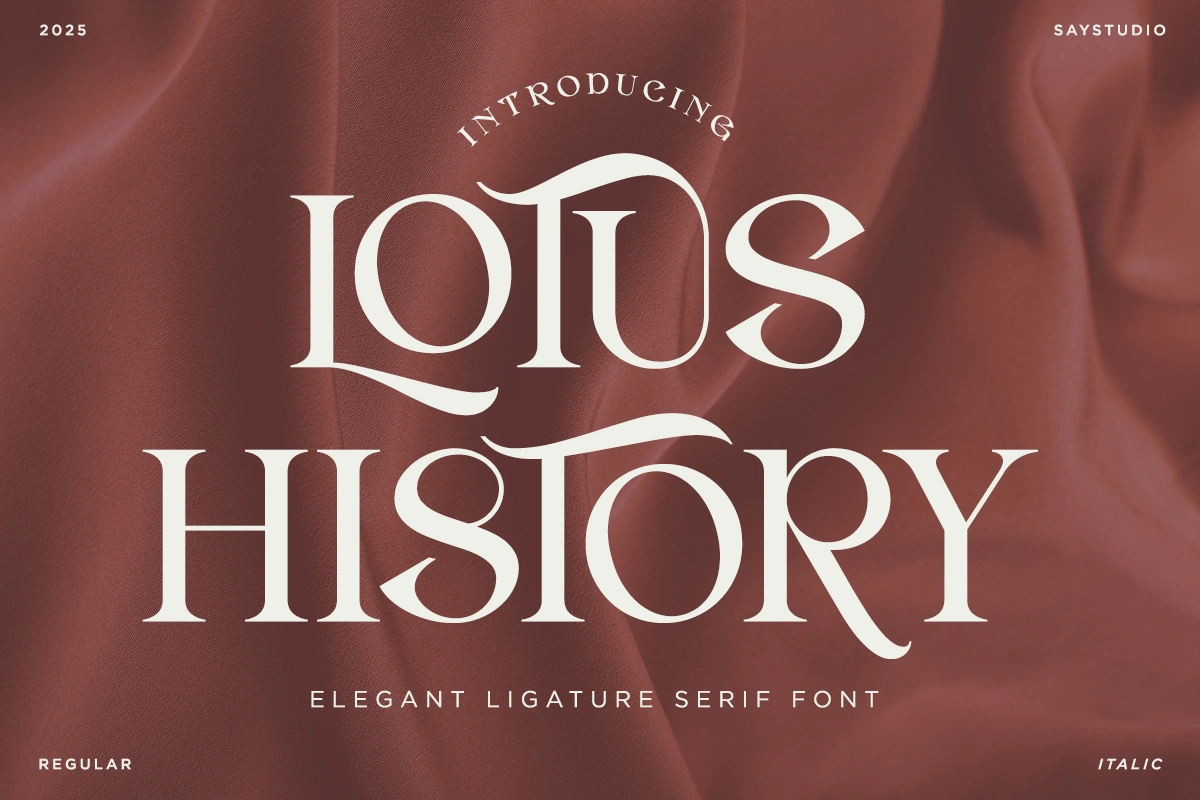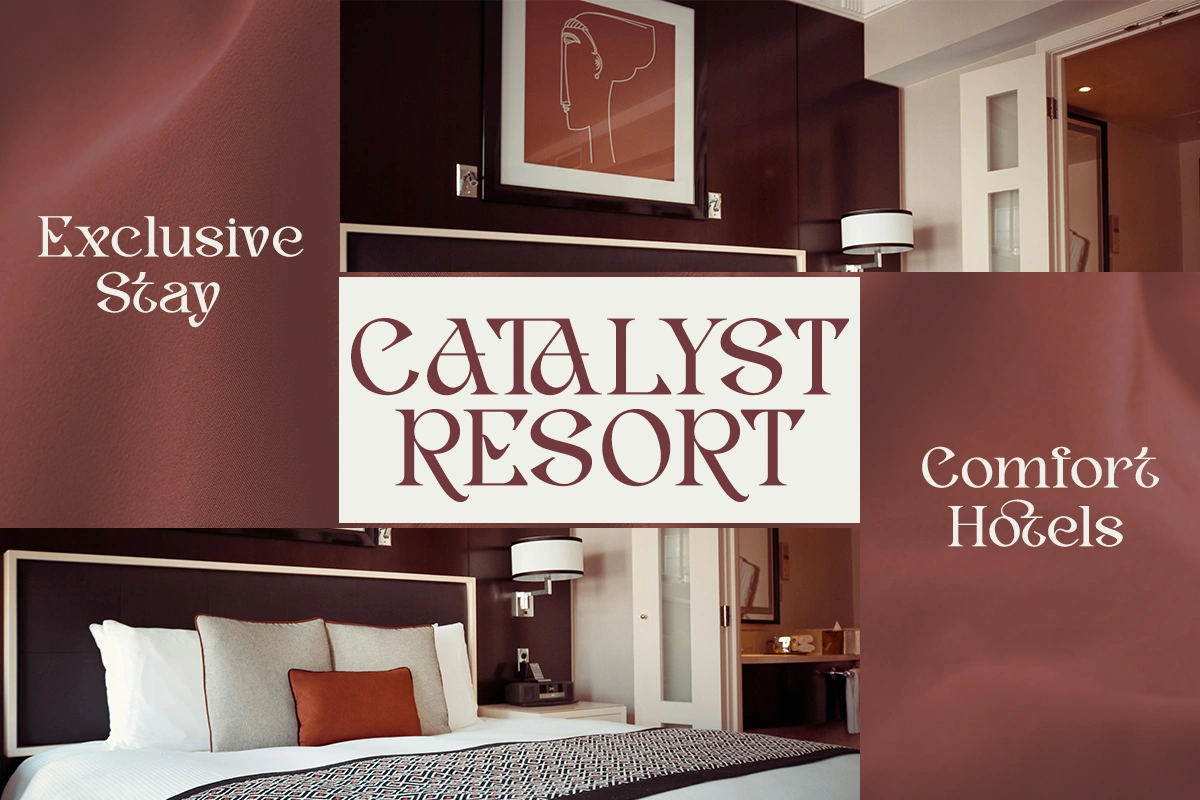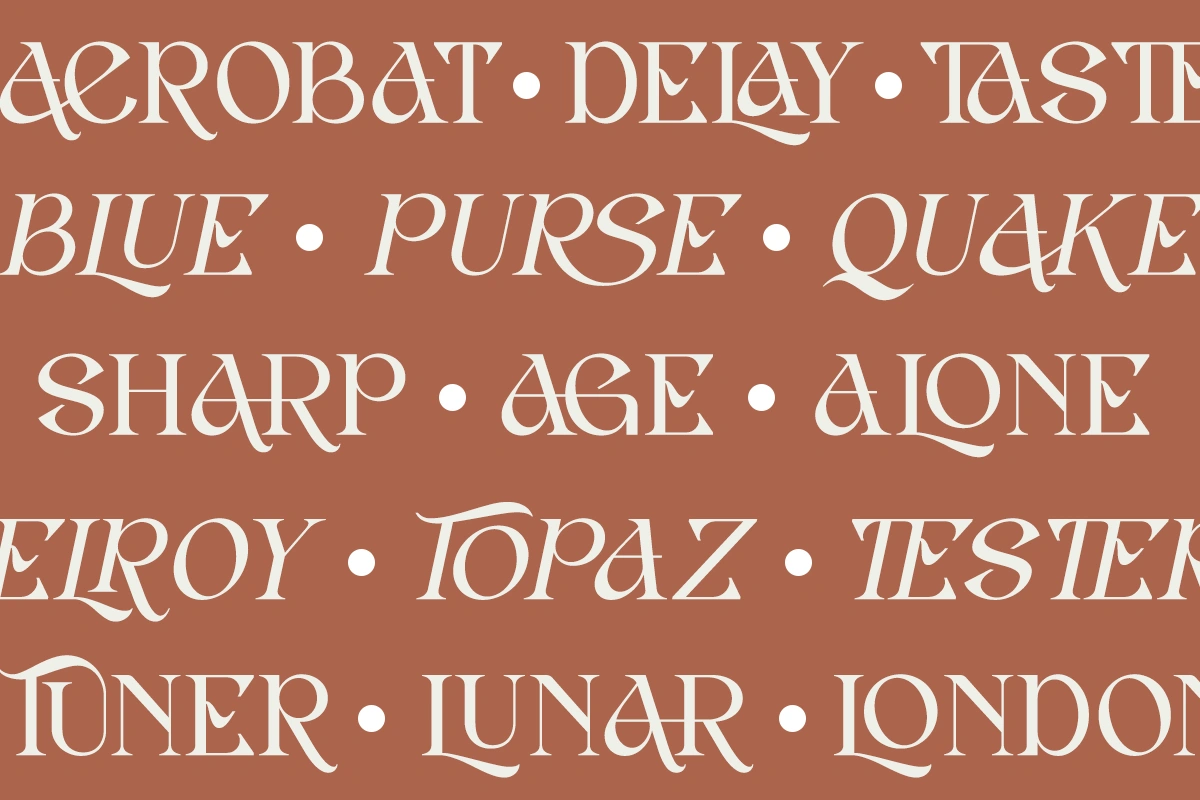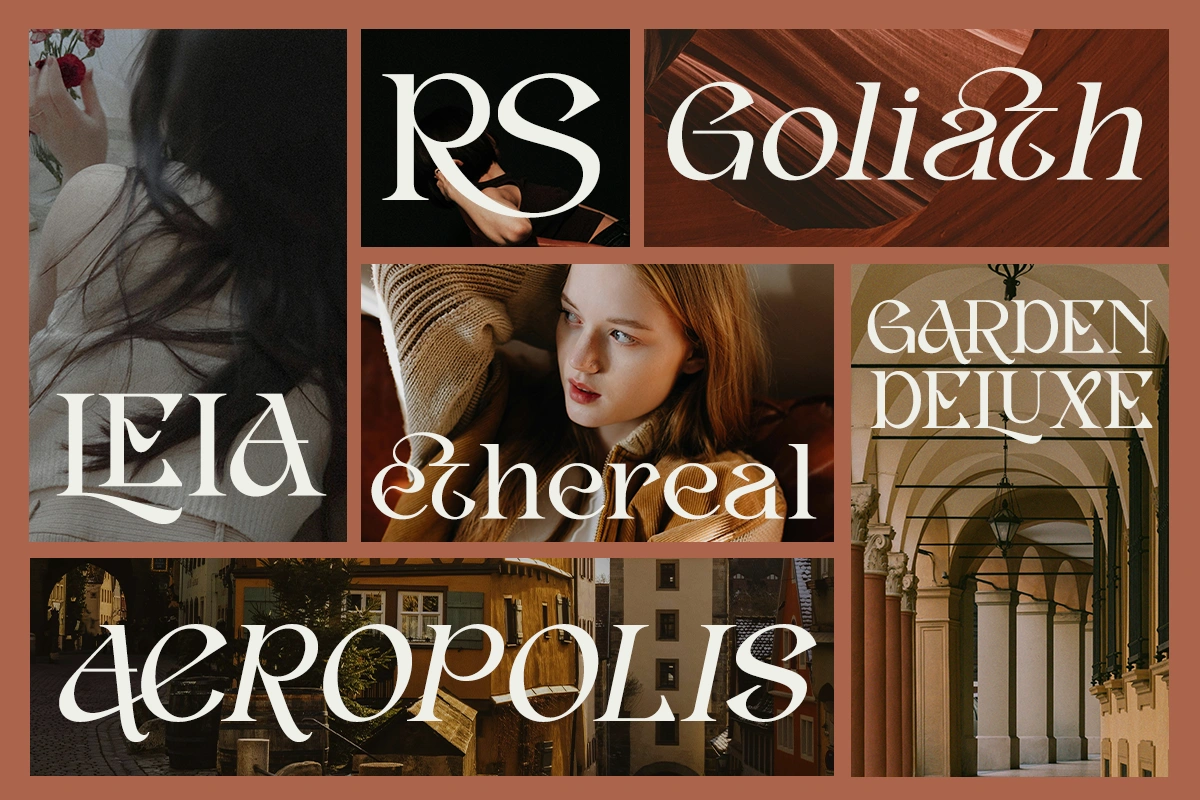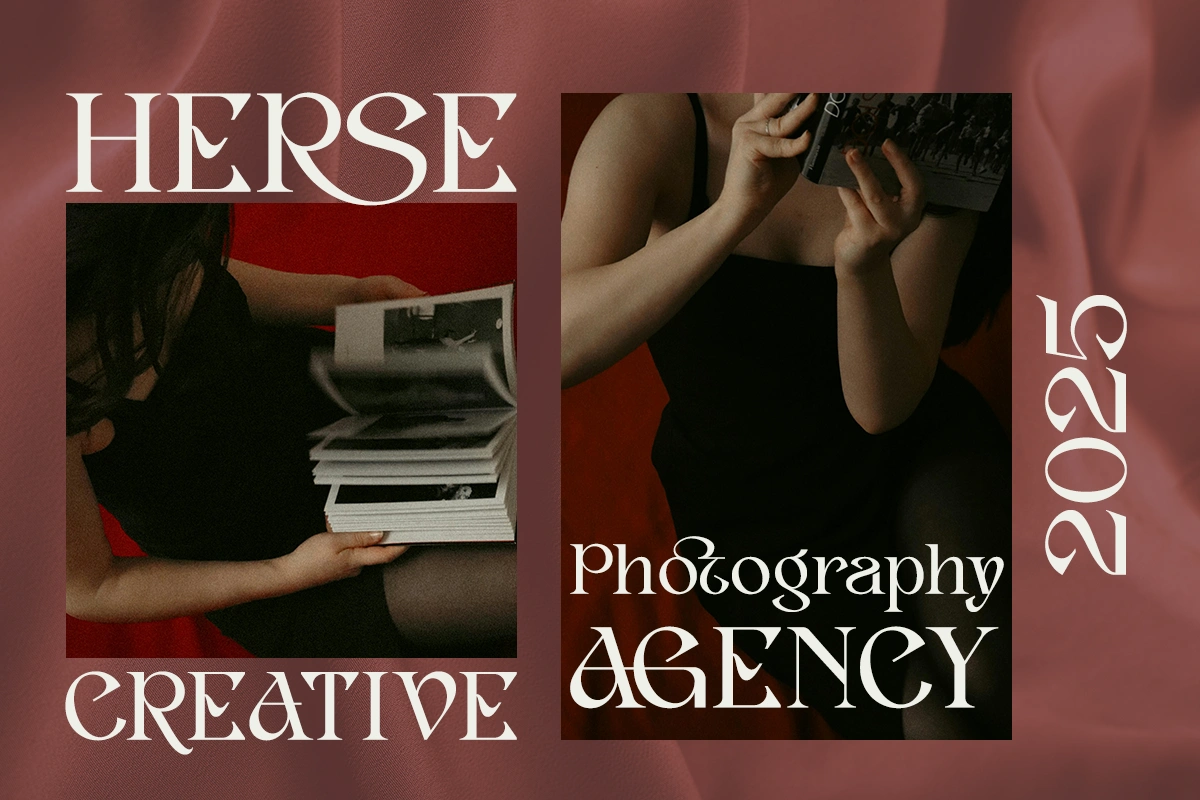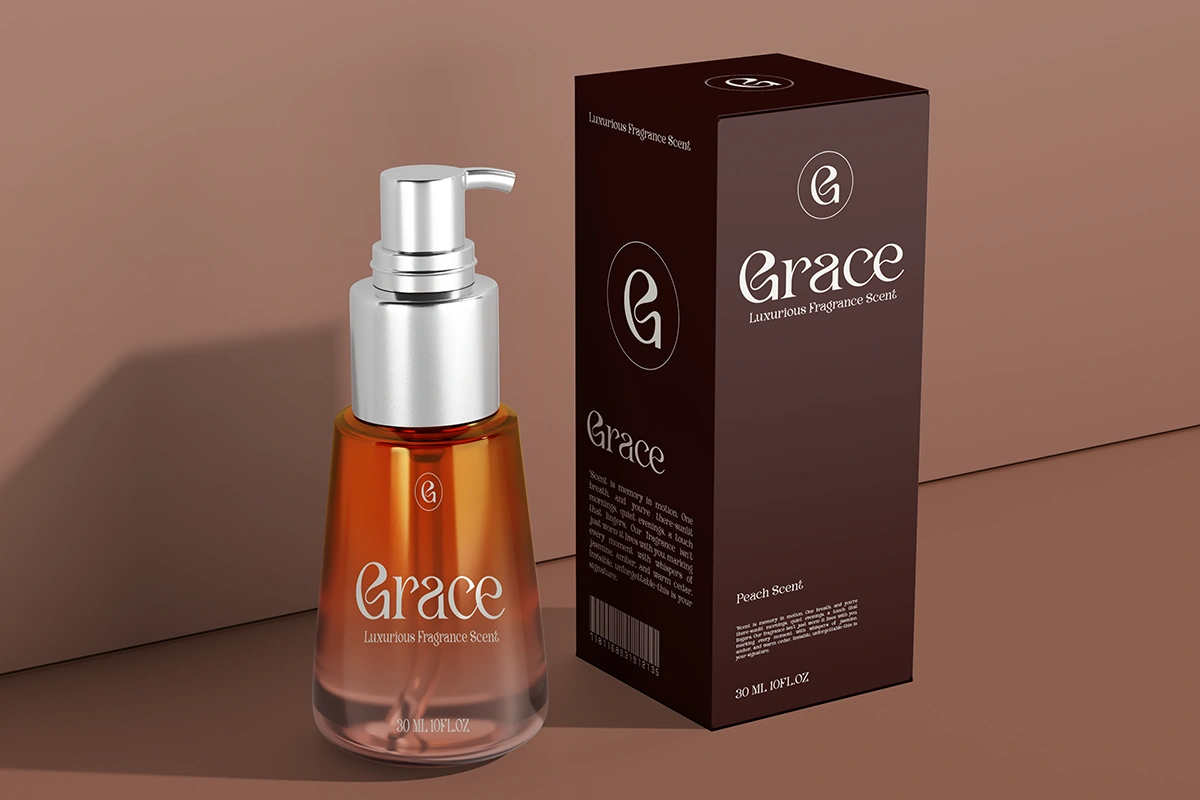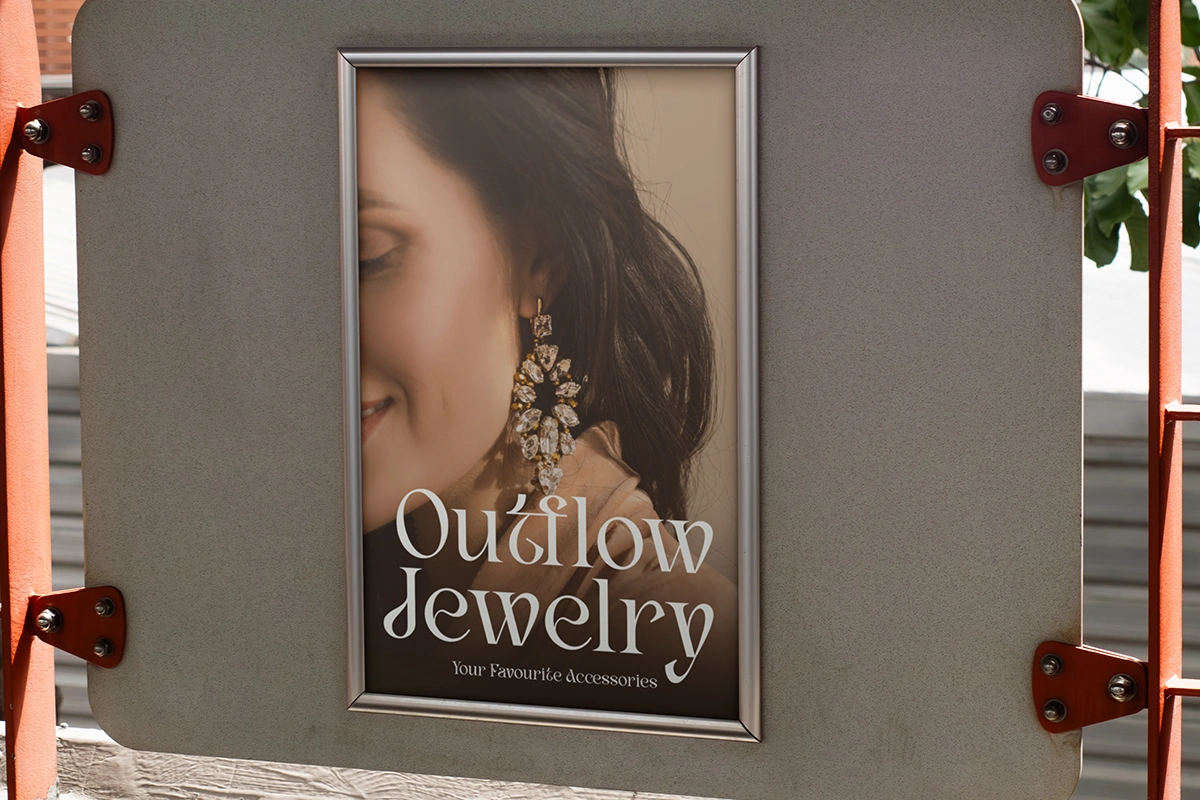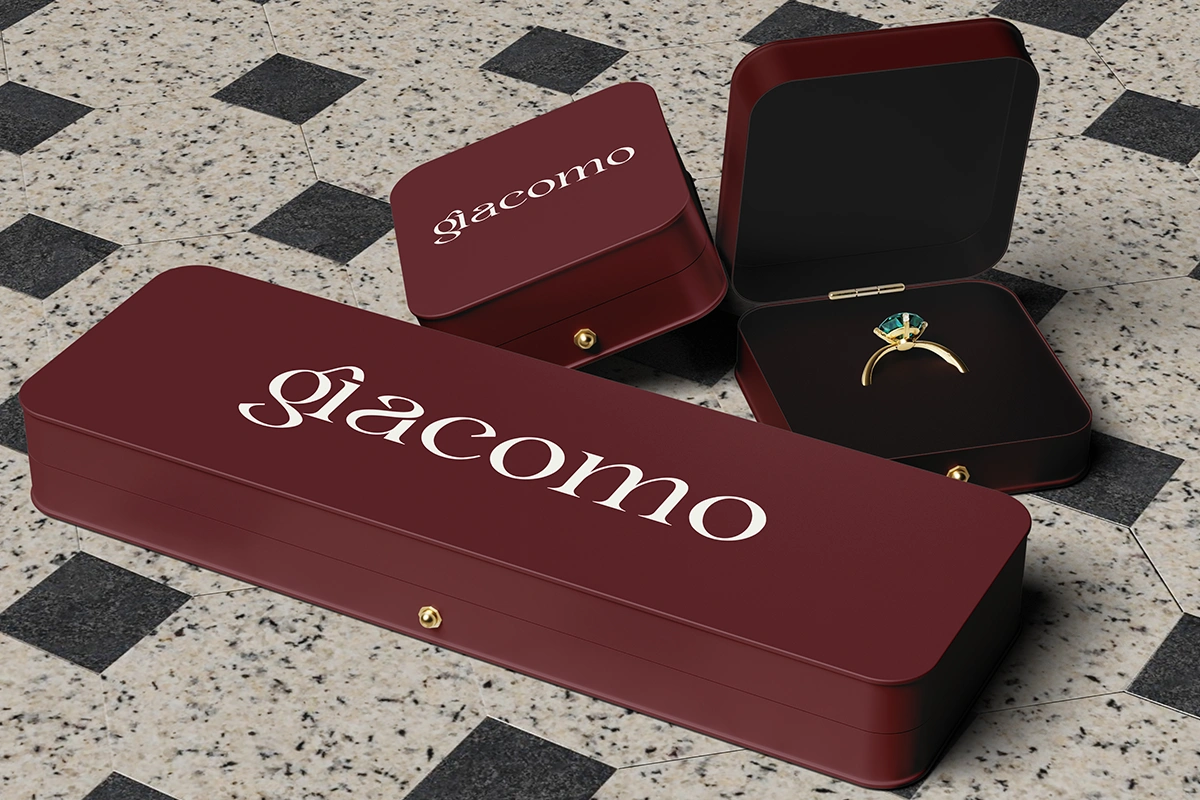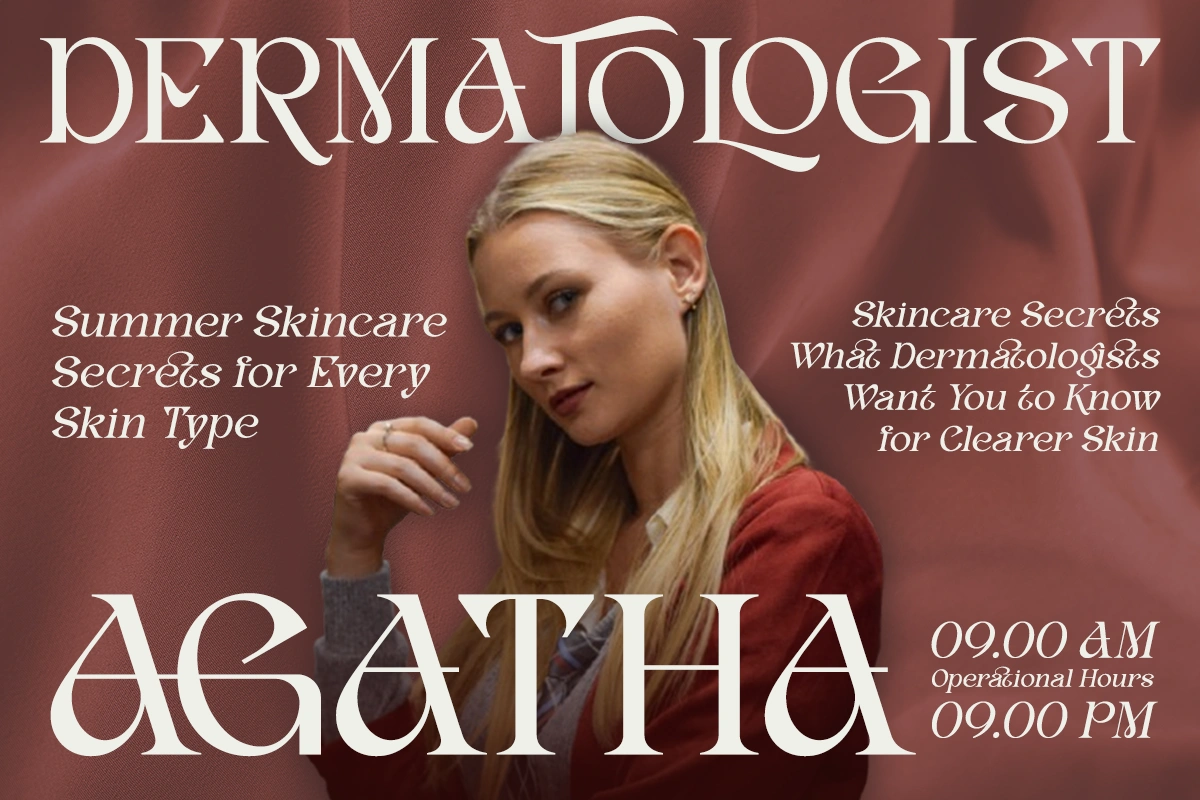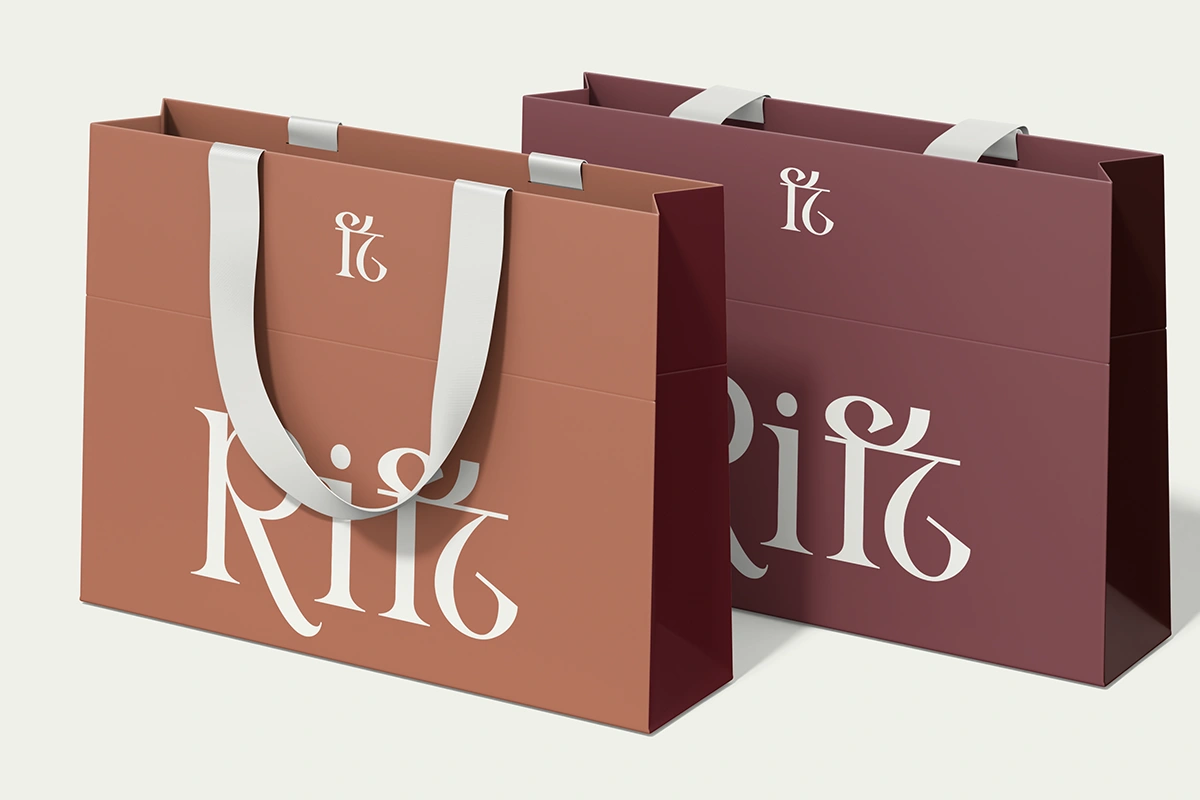
Lotus History – Serif Font
🌸 Lotus History – Elegant Ligature Serif Font
Lotus History is a graceful ligature serif font that blends sophistication with artistic detail. Each letter is thoughtfully crafted with a tall, slender, and minimalist silhouette, creating a refined and modern appearance. What sets this typeface apart is its seamless combination of classic serif elegance and decorative ligature connections, resulting in a visually harmonious and distinctive design.
With a collection of alternate characters and stylish ligatures, Lotus History is perfect for projects that require a touch of class and individuality. Ideal for logos, branding, editorial headlines, wedding invitations, posters, and other high-end creative works, this font transforms every word into a design element.
Embrace the beauty of form and flourish with Lotus History, where every letter tells a story.